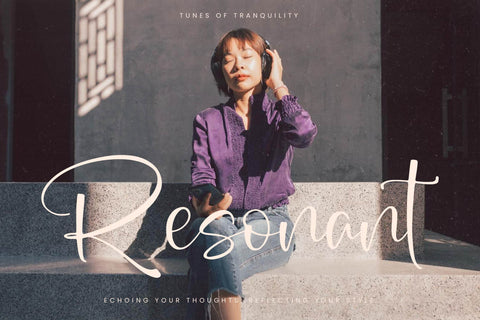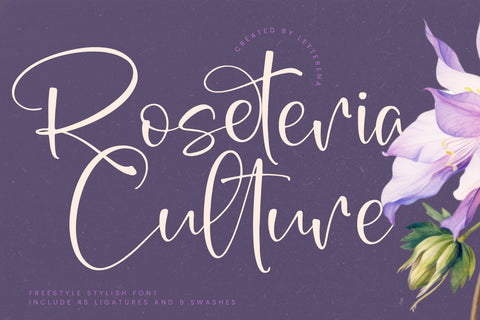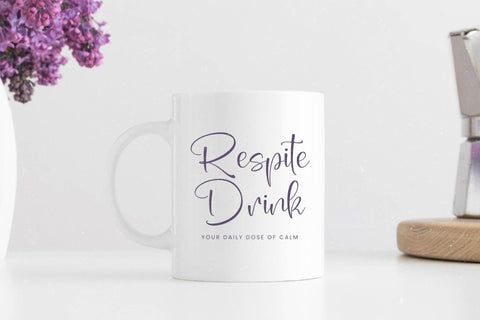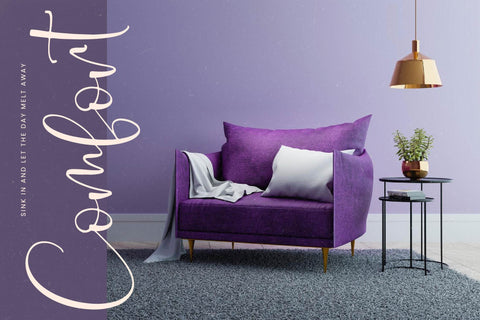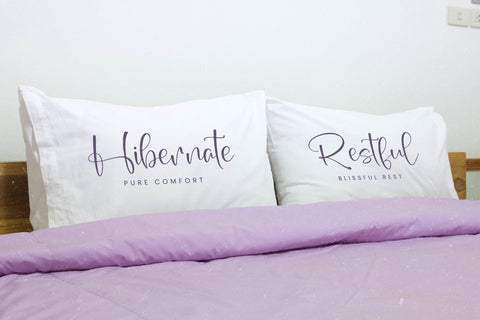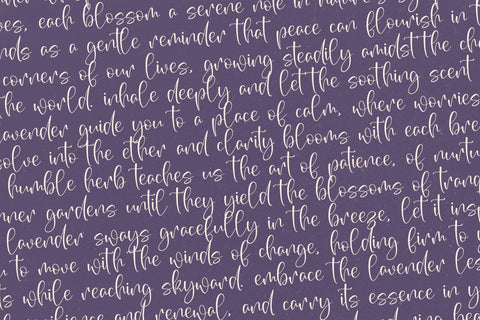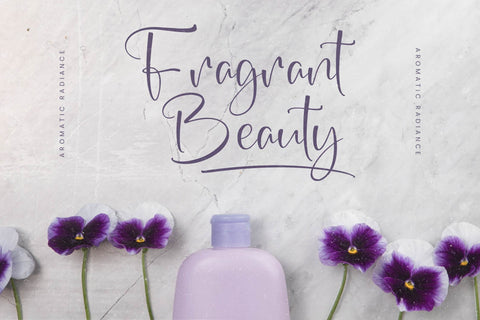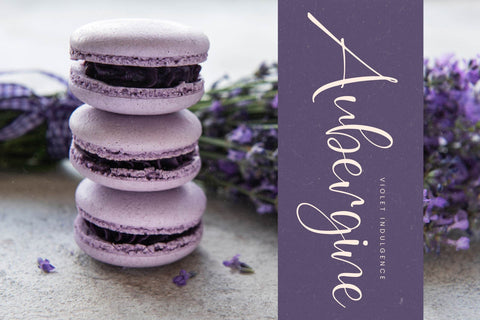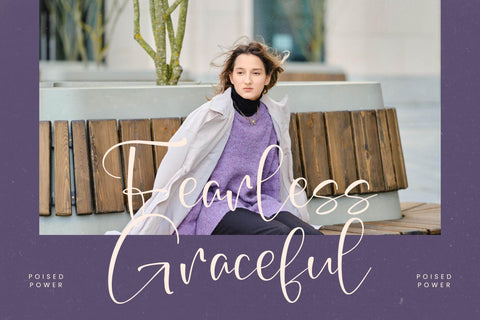
Roseteria Culture - Freestyle Stylish Font
Roseteria Culture - Freestyle Stylish Font , from Letterena, is a Luxury Script font, suitable for any projects such as: logos, branding projects, homeware designs, product packaging, mugs, quotes, posters, shopping bags, t-shirts, book covers, name card, invitation cards, greeting cards, label, photography, watermark, special events, and all your other luxury and beautiful projects that need a Luxury Script taste.